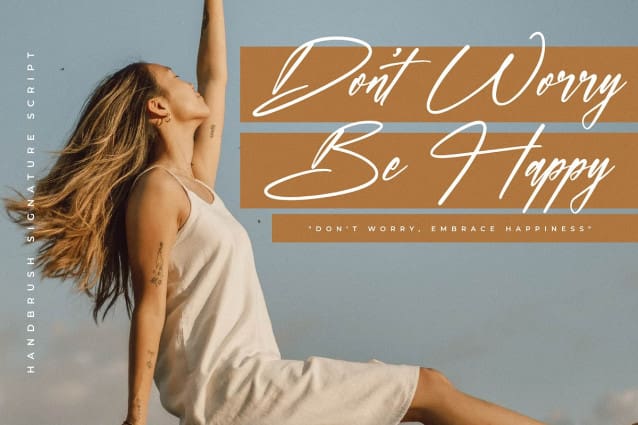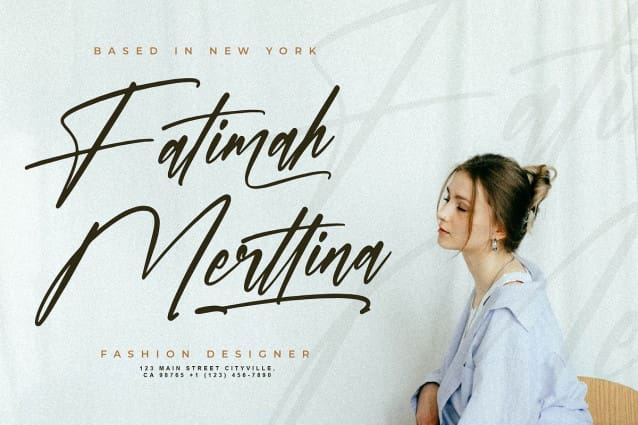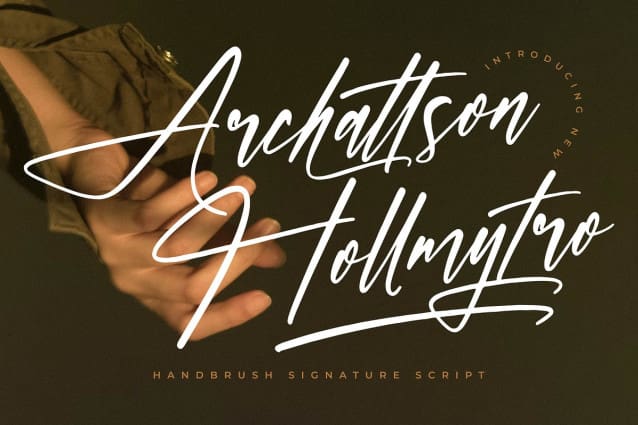
Archattson Hollmytro Font
Archattson Hollmytro Font – Handbrush Signature Script , from Glorytype Studio, suitable for any projects such as: logos, branding projects, homeware designs, product packaging, mugs, quotes, posters, shopping bags, t-shirts, book covers, name card, invitation cards, greeting cards, label, photography, watermark, special events, and all your other lovely projects that need a beautiful script taste.